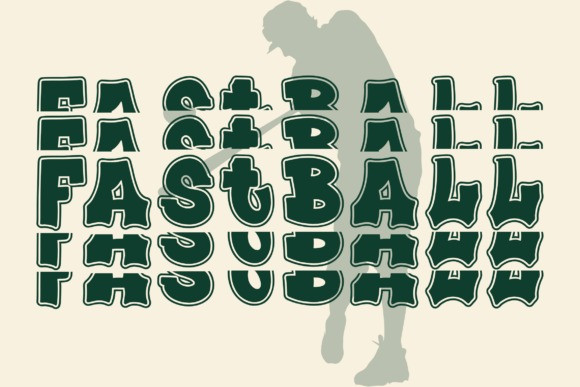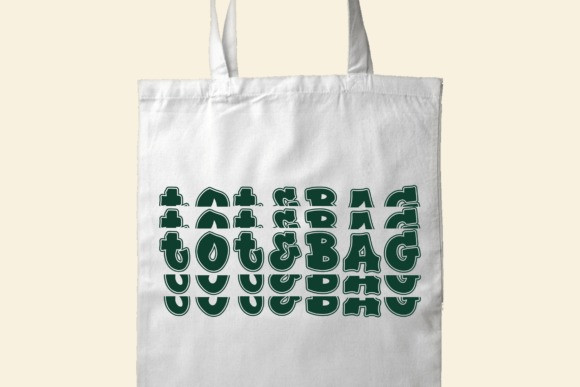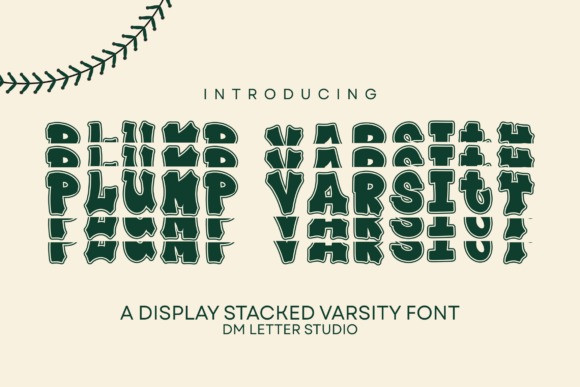
Plump Varsity Stacked Font blends classic college spirit with friendly bubble energy, then optimizes it for tight, vertical layouts. Rounded strokes feel bold and approachable. Even spacing keeps stacked words clear on shirts, hoodies, pennants, stickers, banners, water bottles, and thumbnails. Use it for chants, jersey names, team slogans, and school store merch. Because the rhythm is tuned for compact lines, you can fit BIG messages into small spaces without losing impact.
Why creators love this stacked varsity stacked font
First, it shouts team pride and still looks fun. Next, it cuts cleanly for Cricut, Silhouette, and laser projects. Then it layers beautifully with outlines and drop shadows, so two-color effects take minutes. As a result, you can ship unified drops—locker labels, booster-club decals, pep-rally posters, and e-sports overlays—using one consistent style.